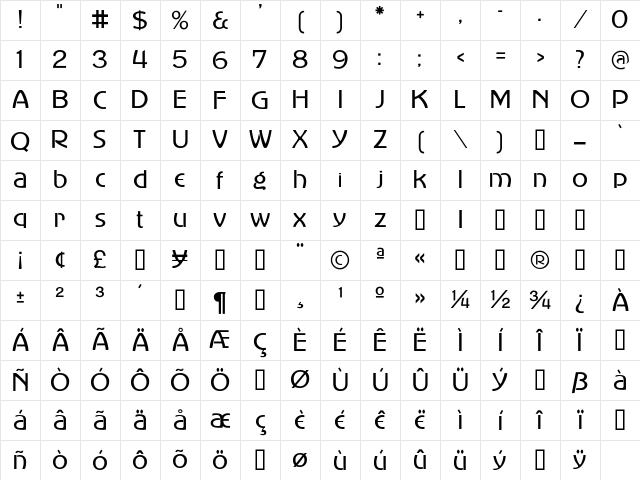
Adventix Regular
Design Context for Adventix
Adventix is a composed and adaptable typeface that performs quietly and consistently across a wide range of design contexts.
Pro Tip: Use Adventix in both headline and body roles to test its range before committing to a single application.